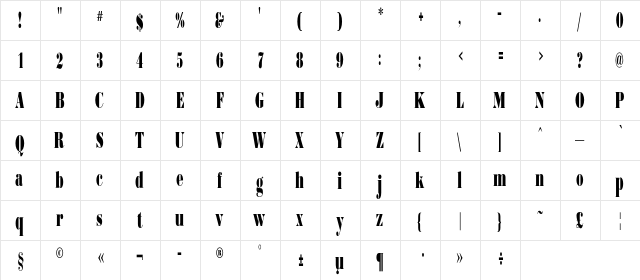
BorjomiCondensedC Regular
Design Context for BorjomiCondensedC Typeface
BorjomiCondensedC is a composed and adaptable typeface that performs quietly and consistently across a wide range of design contexts. The condensed width makes it efficient for tight spaces without sacrificing legibility.